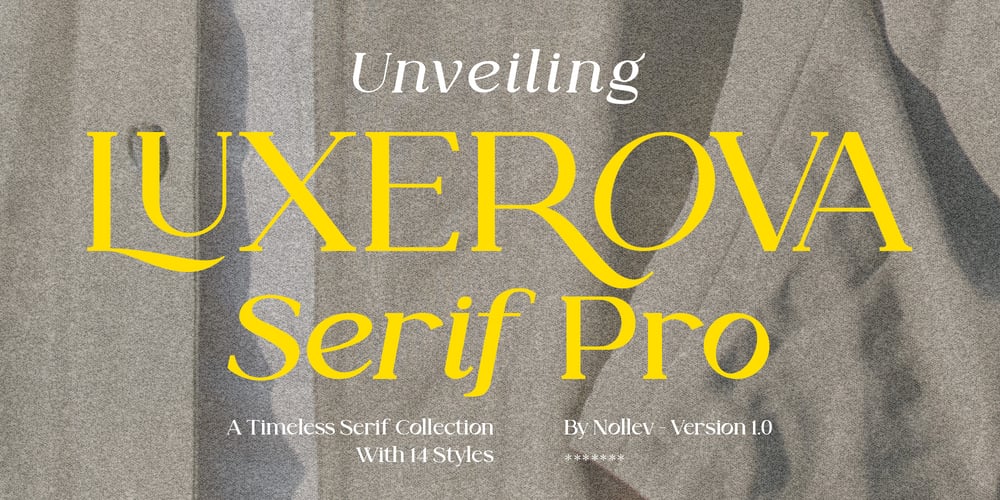
Luxerova Font Family was designed by Akhmad Hidayat and published by Nollev. Luxerova contains 14 styles and family package options. Luxerova – A Modern & Elegant Font Family with 14 Styles High-quality kerning & spacing Full character set (A-Z, numerals, punctuation) OpenType features (liga, alternates, stylistic set)